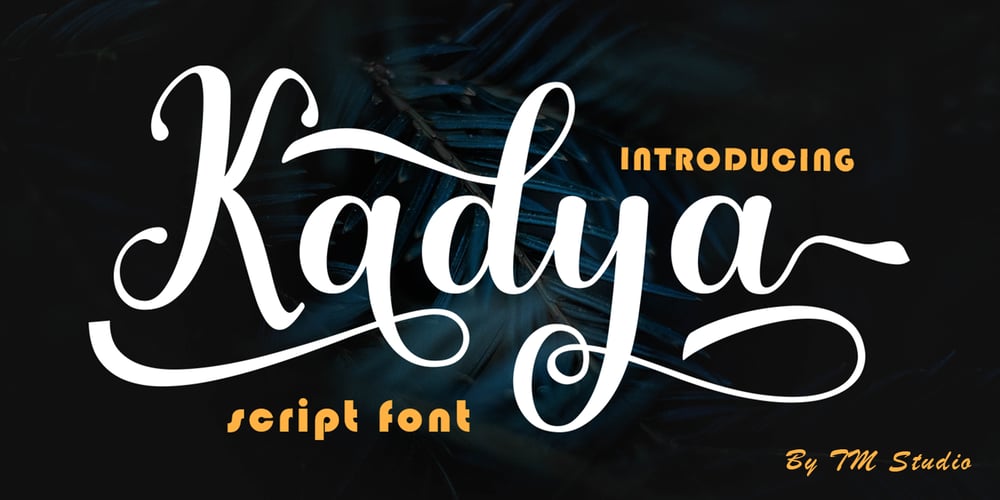
Kadya Font Family was designed by Teuku Bustami and published by TM Type. Kadya contains 1 styles and family package options. Kadya is a very detailed and thin lettered script font. Get inspired by its beautiful style and use it to create lovely designs. This font is PUA encoded which means you can access all the glyphs and sweeps easily!